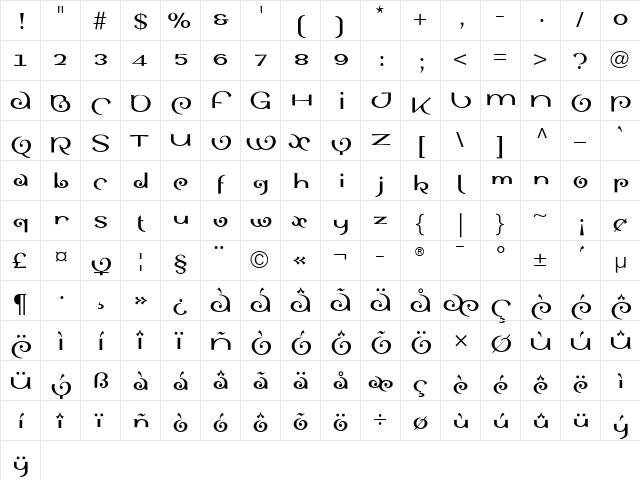
SinahBoldLL Medium
Design Context for SinahBoldLL Typeface
SinahBoldLL is a composed and adaptable typeface that performs quietly and consistently across a wide range of design contexts. Its bold stroke weight gives it real presence on the page.